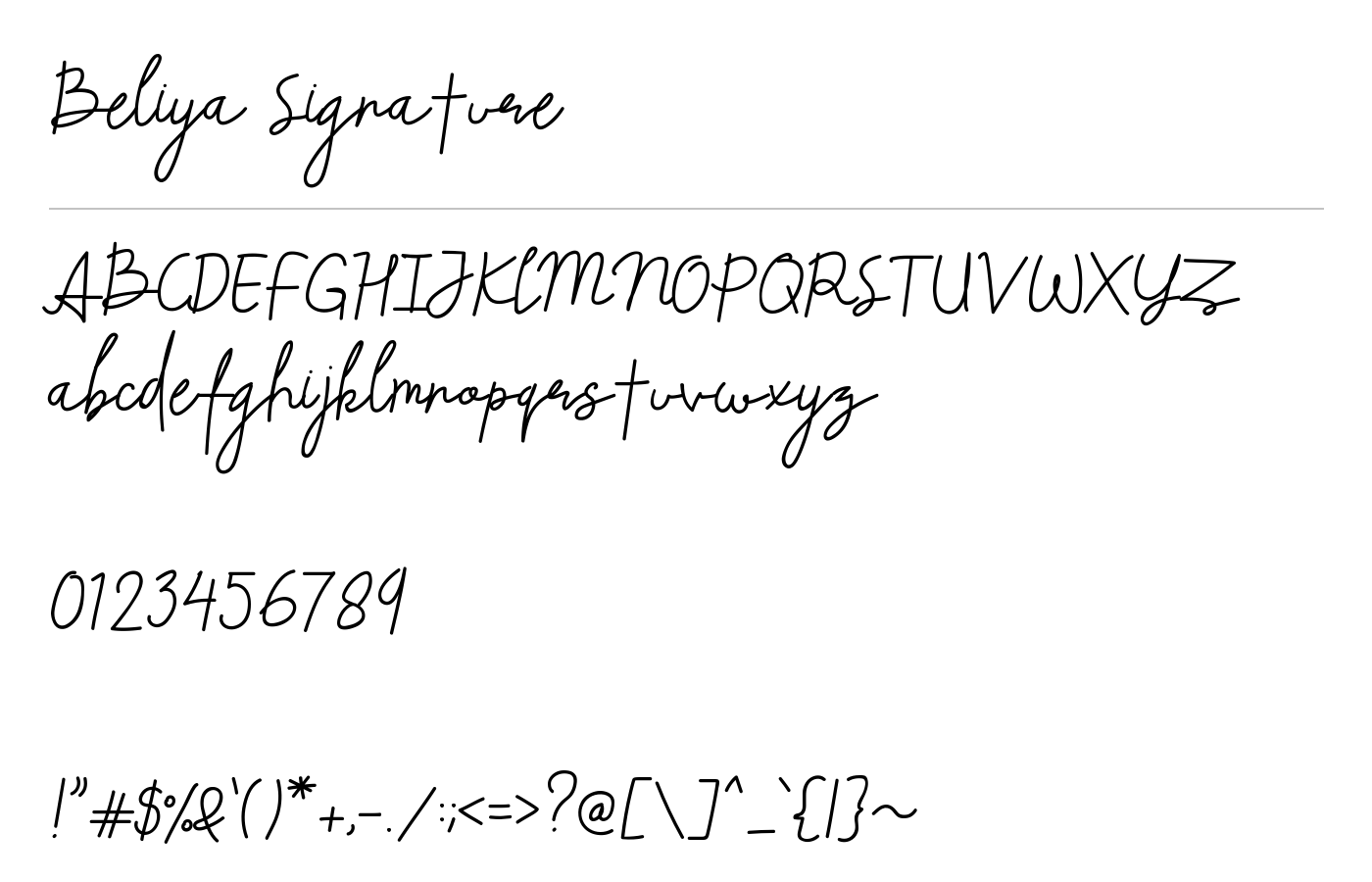
Beliya Signature Font is a delicate, handwritten script with a casual yet refined feel, featuring tall, slender letterforms and smooth, flowing strokes. Its light weight and airy spacing give it an elegant and personal touch, making it perfect for branding, invitations, and creative projects that seek a modern, approachable signature style. This font works well in contexts where a stylish, authentic handwriting vibe is desired without sacrificing readability.
Beliya Signature Font